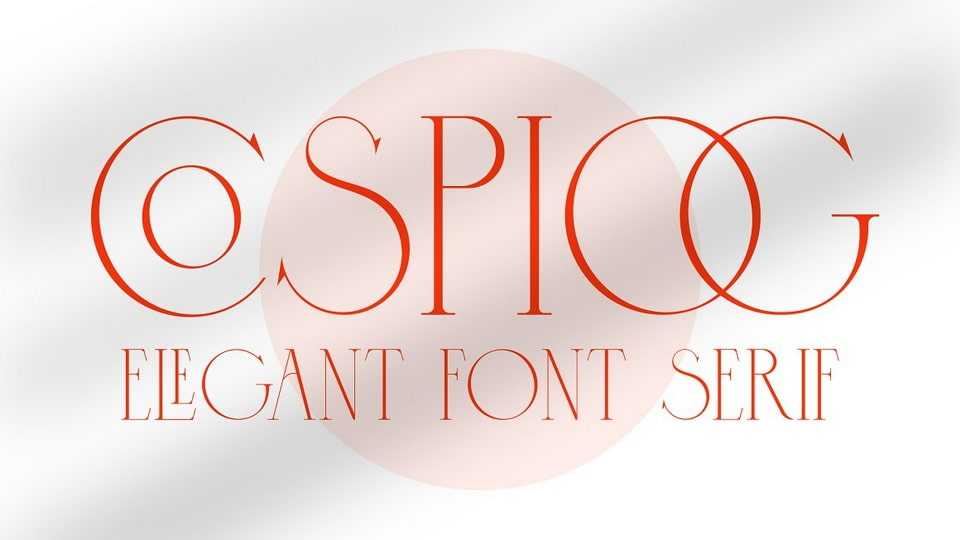
Download Cospiog font, an elegant and sophisticated serif typeface. Use Cospiog in modern and contemporary designs, in various fashion media, posters, modeling magazines, typography, promotions and other digital media.